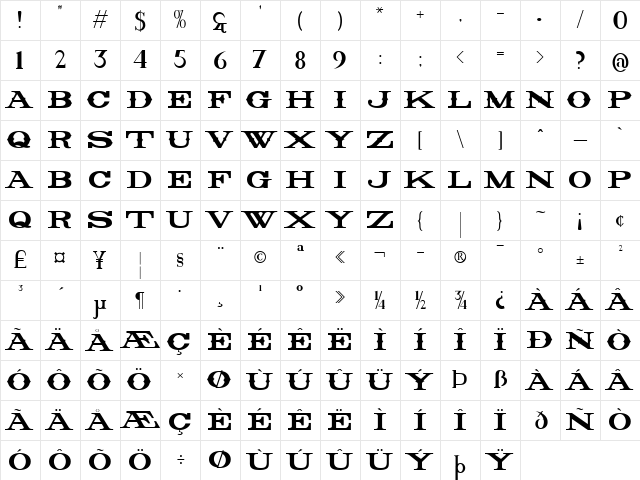
Let Me Ride Regular
Design Context for Let Me Ride
Let Me Ride is a composed and adaptable typeface that performs quietly and consistently across a wide range of design contexts.